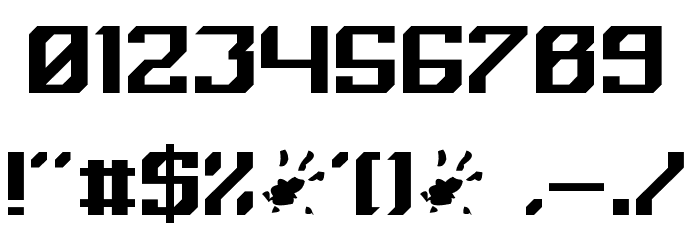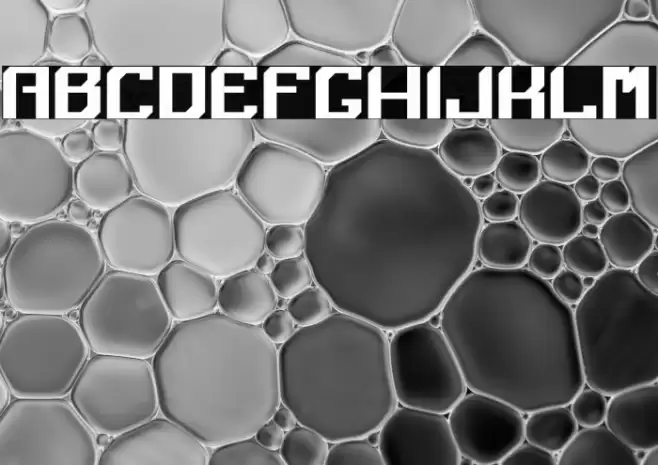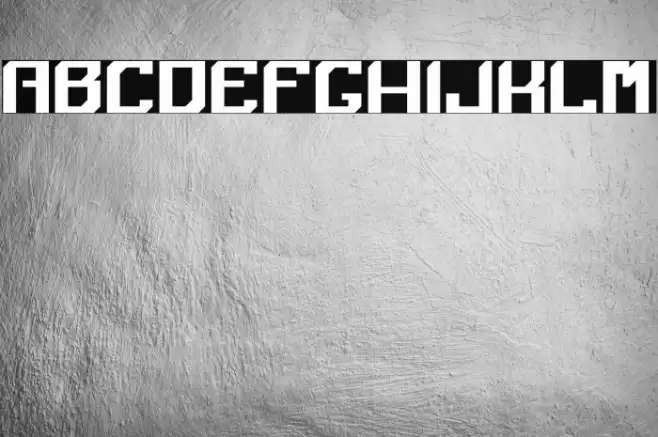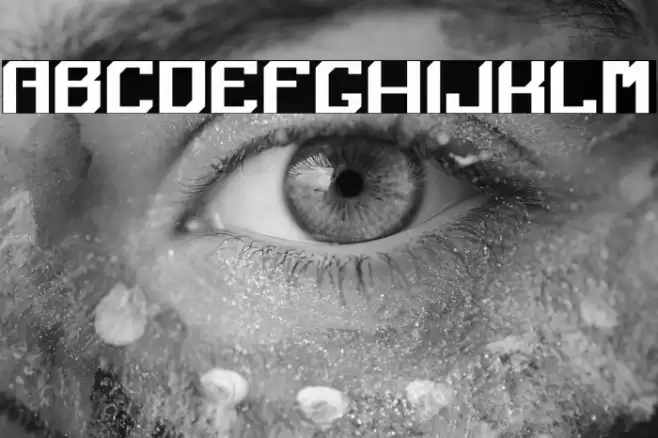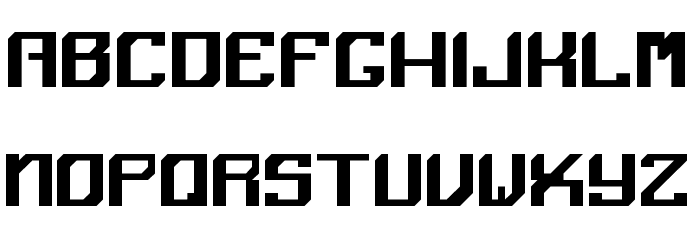
Angular Font
Angular Description
This font features a bold, angular design with a futuristic and geometric aesthetic. The characters are sharply defined with straight edges and angular cuts, giving it a modern and edgy appearance. The uppercase and lowercase letters maintain a consistent style, with a uniform height and width that contributes to its blocky, robust look. The numbers and special characters follow the same design principles, ensuring a cohesive overall appearance. This font is highly legible and makes a strong visual impact, ideal for projects that require a bold statement.